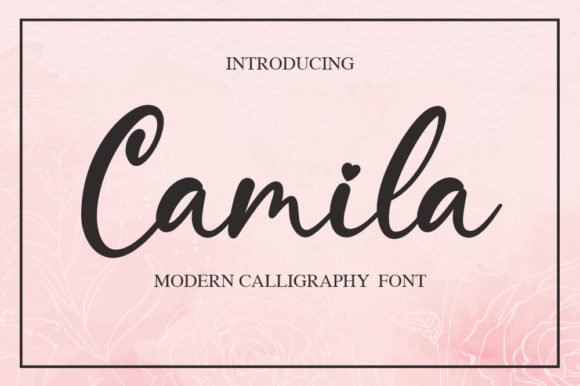
Discover the Delicate Charm of Handwritten Fonts
As you sit at your desk, surrounded by scraps of paper and half-finished projects, a spark of creativity strikes. You envision a beautiful wedding invitation, a heartfelt birthday card, or a sweet thank-you note. The perfect words flow effortlessly, but the right font is still elusive. That’s where the dainty and flowing Camila Font comes in – a handwritten font that captures the essence of romance and personality.
This lovely font is perfect for designers seeking to add a touch of whimsy and warmth to their designs. With its sweet and joyful aesthetic, Camila Font is an ideal choice for any project that requires a personalized and intimate feel. Whether you’re working on a wedding invitation, a baby announcement, or a special gift, this font will help you convey your emotions and connect with your audience on a deeper level.
Camila Font Key Features
- Unique Characteristics: Elegant script, high-end feel, suitable for formal invitations, weddings, and luxury branding
- Font Style: Script, Calligraphy
Designer Review: Camila Font
Overall, I’d say that Camila Font is a solid addition to any designer’s toolkit, but it’s not without its quirks. ✨
- Beautifully crafted strokes and subtle flourishes add a touch of elegance to any text.
- The font’s versatility makes it suitable for a wide range of applications, from body text to headings.
- It’s highly legible, even at small sizes, making it perfect for digital interfaces.
- The font may feel a bit too ornate for some designs, overpowering the content.
- The lack of bold weights makes it less suitable for titles or emphasis.
- It may not be the best choice for body text in very long blocks of copy, as it can feel overwhelming.
Overall, I’d recommend Camila Font for designs that require a touch of sophistication and elegance. Just be mindful of its limitations and use it judiciously.
Tips for Getting the Most Out of Camila Font
Use Camila Font for titles, headings, and other emphasis text to create a visually appealing design.
Combine Camila Font with other fonts to create a unique and stylish typography.
Experiment with different font sizes, colors, and styles to achieve the desired effect.
Camila Font is ideal for:
Designing fashion and beauty-related materials.
Creating elegant and sophisticated business materials.
Adding a touch of elegance to digital products and websites.
Alternatives to Camila Font for Designers
Montserrat is a modern sans-serif font designed by Julieta Ulanovsky. It is ideal for use in digital media, such as websites and mobile applications. Montserrat is more geometric and clean compared to Camila Font, making it a great choice for modern and minimalist designs. Its versatility and wide range of weights make it a popular choice among designers.
Merriweather is a classic serif font designed by Eben Sorkin. It is suitable for use in print media, such as books and magazines. Merriweather is more traditional and elegant compared to Camila Font, making it a great choice for designs that require a touch of sophistication. Its wide range of weights and styles also make it a popular choice among designers.
Open Sans is a modern sans-serif font designed by Steve Matteson. It is ideal for use in digital media, such as websites and mobile applications. Open Sans is more clean and minimalistic compared to Camila Font, making it a great choice for modern and simple designs. Its wide range of weights and styles also make it a popular choice among designers.
Lato is a modern sans-serif font designed by Łukasz Dziedzic. It is suitable for use in digital media, such as websites and mobile applications. Lato is more elegant and refined compared to Camila Font, making it a great choice for designs that require a touch of sophistication. Its wide range of weights and styles also make it a popular choice among designers.